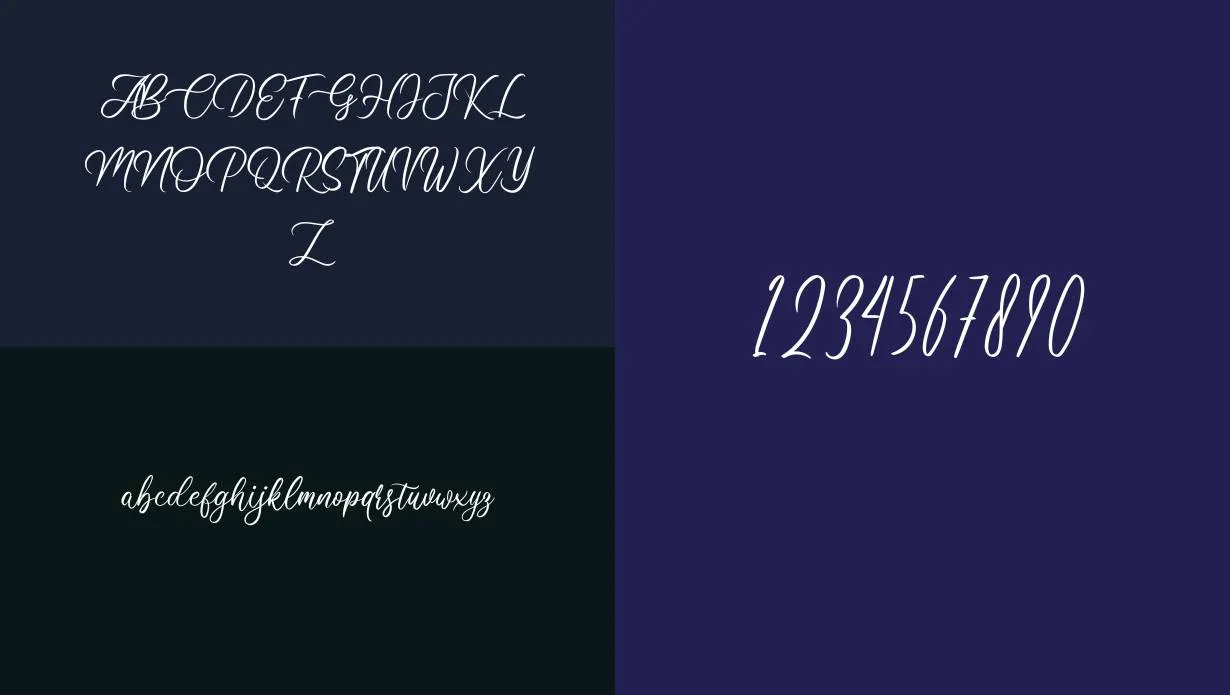
Clarissa font is like a handwritten note from a dear friend, adding a personal touch to your words. When you use it, your text becomes like a friendly conversation, inviting and warm. It’s perfect for creating personal messages, invitations, or anything that needs a touch of heartfelt warmth.
Clarissa’s letters are like handwritten embraces, adding a personal and genuine feel to your text.